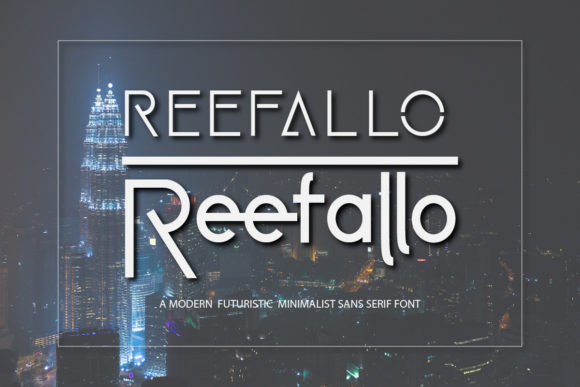
Step into a world of visual elegance with the Reefallo Font, a sans serif masterpiece crafted to leave an everlasting impression. Immerse yourself in a symphony of minimalist beauty, where clean lines and graceful curves intertwine to create a font that's both modern and timeless.
Unleash your creativity with a font that captures the essence of sophistication and charm. From wedding invitations that exude romance to thank you cards that radiate warmth, Reefallo elevates your words into heartfelt expressions of gratitude. Transform quotes into captivating works of art, and let your greeting cards bloom with elegance as you share heartfelt messages.
Harness the power of Reefallo to make your logos and business cards stand out as emblems of professionalism and distinction. Its clean and legible design ensures your brand's message shines through with unwavering clarity. Whether you're a creative professional seeking to leave a lasting impact or a business owner looking to make a bold statement, Reefallo is your perfect partner.
Indulge in the versatility of Reefallo, a font that effortlessly adapts to a myriad of design projects. Its graceful presence enhances any project, from website designs that exude modernity to social media graphics that captivate your audience. Unleash your imagination and explore the endless possibilities, knowing that Reefallo will elevate your creations to new heights of sophistication.
Choosing Reefallo is choosing a font that speaks to the heart and captivates the eye. Its meticulous design ensures every character carries a touch of grace and refinement, adding a layer of elegance to even the simplest of texts. Immerse yourself in the world of Reefallo, where creativity knows no bounds, and your designs take center stage.